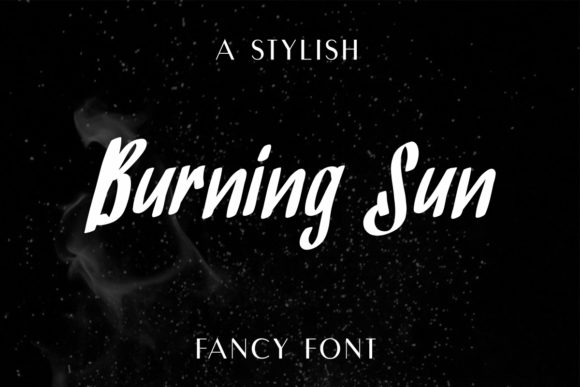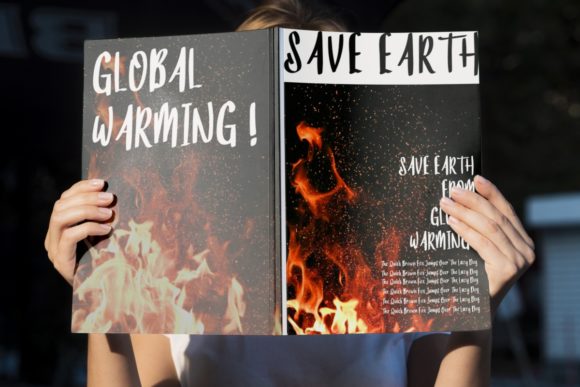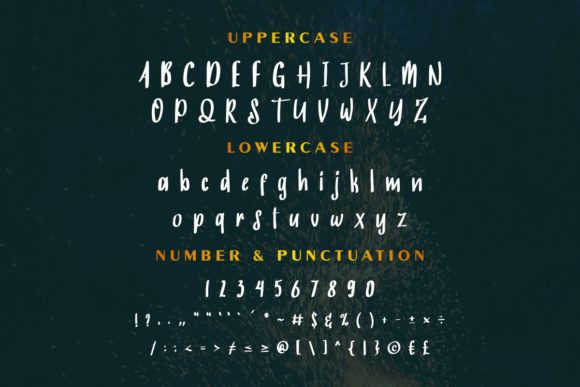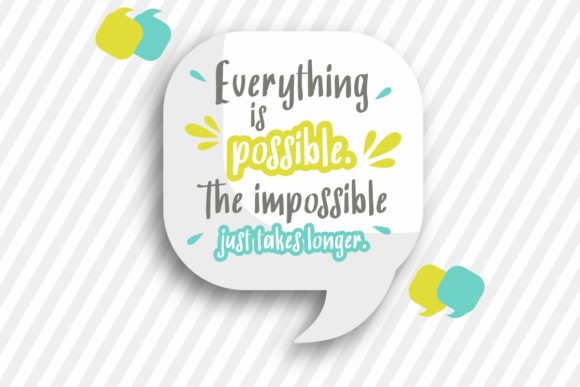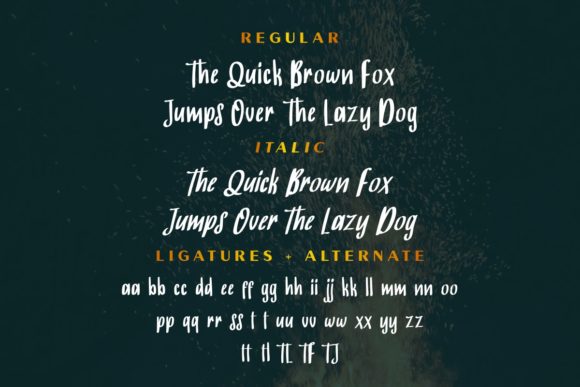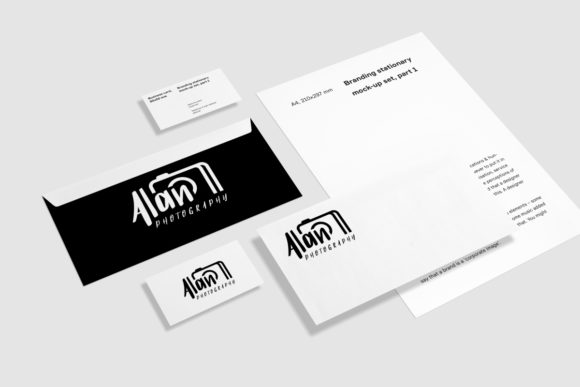
Burning Sun Font: Unleash the Contemporary Coolness in Your Designs
Are you on the lookout for a font that screams modernity and coolness? Look no further than the Burning Sun Font, a stunning modern handwritten script font that’s taking the design world by storm. In this article, we’ll dive into the world of Burning Sun Font, exploring its features, benefits, and uses, as well as provide tips on how to make the most of this incredible font.
What is Burning Sun Font?
Burning Sun Font is a modern handwritten script font that’s designed to add a touch of contemporary coolness to your designs. With its fluid strokes and elegant letterforms, this font is perfect for designers and crafters looking to create stunning visual content that stands out from the crowd.
Key Features of Burning Sun Font
- Modern Handwritten Script: Burning Sun Font boasts a modern handwritten script style that’s perfect for creating trendy and Instagram-worthy designs.
- Fluid Strokes: The font features fluid strokes that give it a natural, handwritten feel.
- Elegant Letterforms: Each letterform is carefully crafted to exude elegance and sophistication.
- High Versatility: Burning Sun Font is highly versatile and can be used for a wide range of design projects, from branding and advertising to packaging and social media graphics.
Benefits of Using Burning Sun Font
So, why should you choose Burning Sun Font for your next design project? Here are just a few benefits of using this amazing font:
- Adds a Touch of Modernity: Burning Sun Font instantly adds a touch of modernity and coolness to your designs, making them stand out in a crowded design landscape.
- Enhances Brand Identity: With its unique and elegant letterforms, Burning Sun Font can help enhance your brand identity and create a lasting impression on your audience.
- Boosts Creativity: The font’s fluid strokes and modern style can help spark your creativity and inspire new ideas for your designs.
Uses of Burning Sun Font
Burning Sun Font is an incredibly versatile font that can be used for a wide range of design projects, including:
- Branding and Advertising: Use Burning Sun Font to create stunning brand logos, advertisements, and marketing materials.
- Packaging Design: Add a touch of modernity to your packaging designs with this beautiful font.
- Social Media Graphics: Create eye-catching social media graphics, such as Instagram posts and Facebook headers, using Burning Sun Font.
- Stationery and Invitations: Use the font to create beautiful stationery, invitations, and greeting cards.
Tips for Using Burning Sun Font
To get the most out of Burning Sun Font, here are a few tips to keep in mind:
- Pair with Bold Fonts: Pair Burning Sun Font with bold fonts to create a striking contrast and add visual interest to your designs.
- Experiment with Colors: Don’t be afraid to experiment with different colors and textures to add depth and dimension to your designs.
- Use for Headlines and Titles: Use Burning Sun Font for headlines and titles to add a touch of modernity and elegance.
In conclusion, Burning Sun Font is an incredible modern handwritten script font that’s perfect for designers and crafters looking to add a touch of contemporary coolness to their designs. With its fluid strokes, elegant letterforms, and high versatility, this font is sure to inspire your creativity and take your designs to the next level. So why wait? Get inspired by the Burning Sun Font today and unleash your creativity!